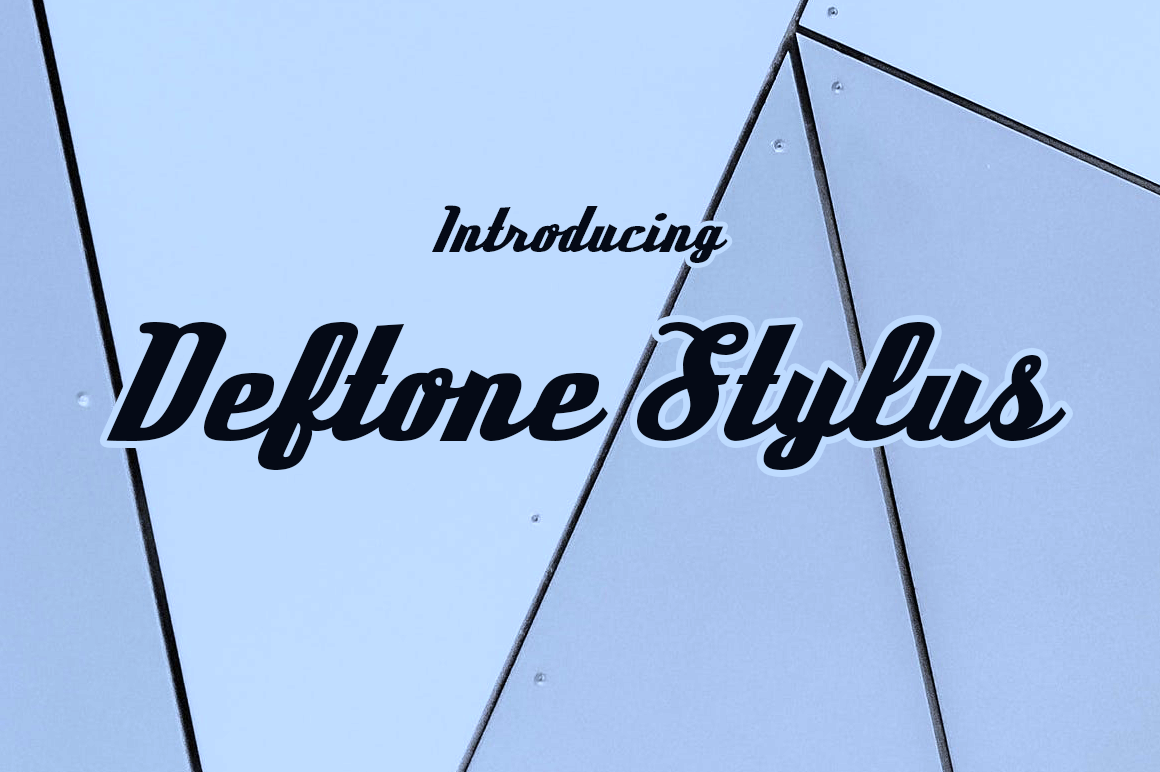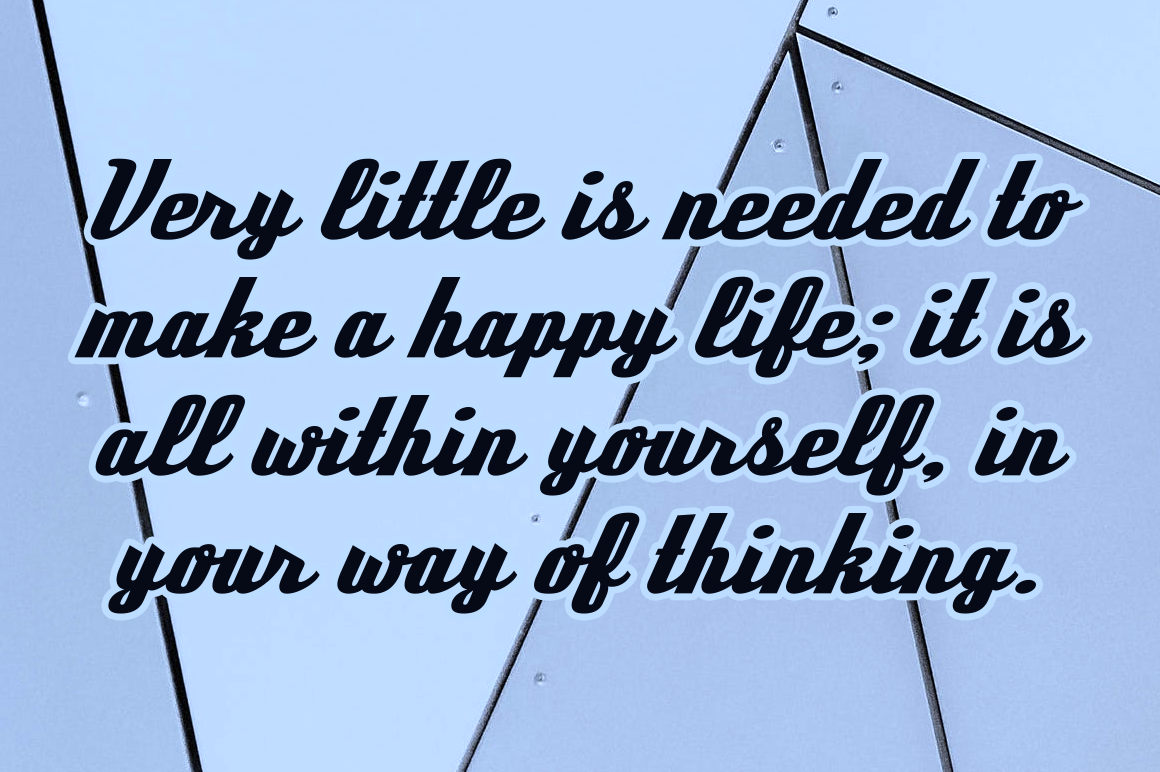
Deftone
About Deftone Font
Deftone Stylus is a structured, industrial script from the late 20th Century. It was rebuilt in 2011 and now features custom letter pairs to make words flow. This free font is from Typodermic.